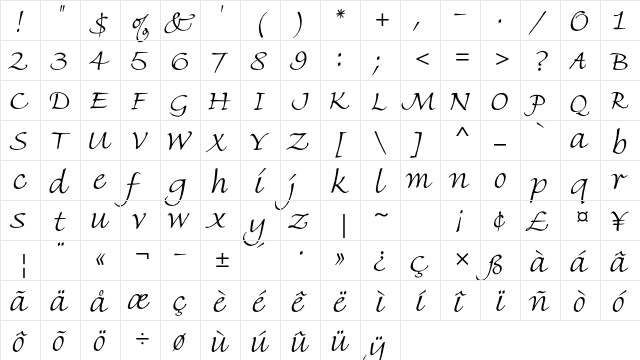
Fine Hand Std Regular
| Designer | Richard Bradley |
Design Context for Fine Hand Std Typeface
Fine Hand Std brings a calligraphic fluidity to the page — its connecting strokes and expressive curves give it an unmistakably human quality.
Font Pairing: Combine Fine Hand Std with a simple geometric sans for maximum contrast — the tension between flowing curves and clean structure is a classic typographic pairing.
Pro Tip: Pair Fine Hand Std with a clean sans-serif for supporting text. The contrast between fluid script and geometric structure creates an elegant typographic hierarchy.